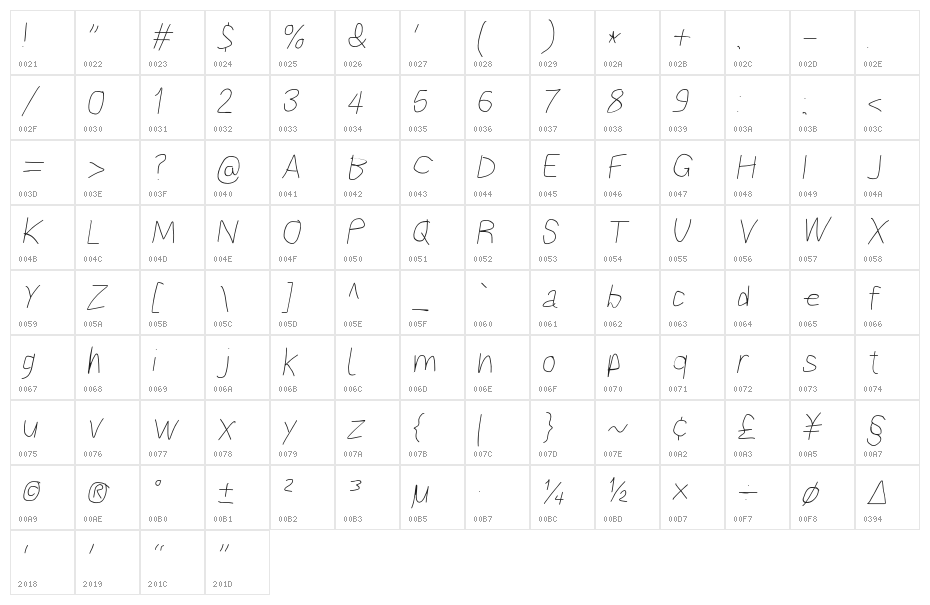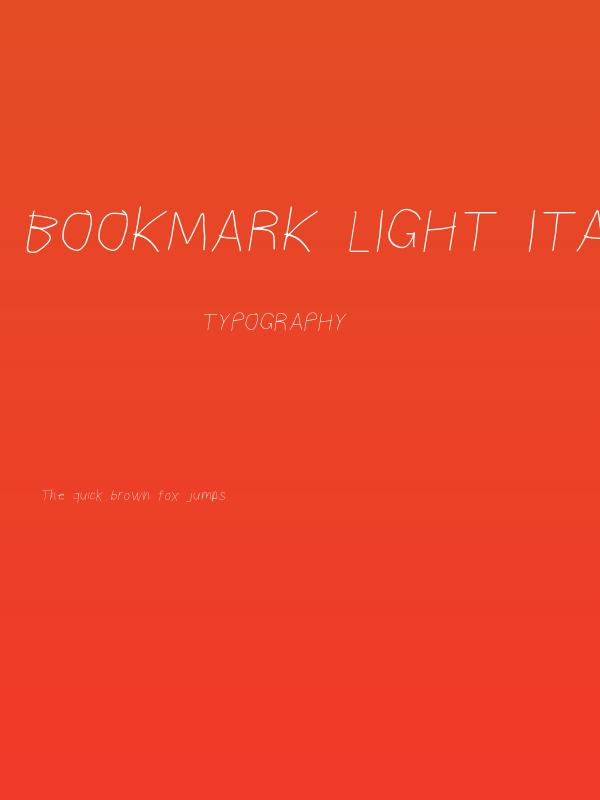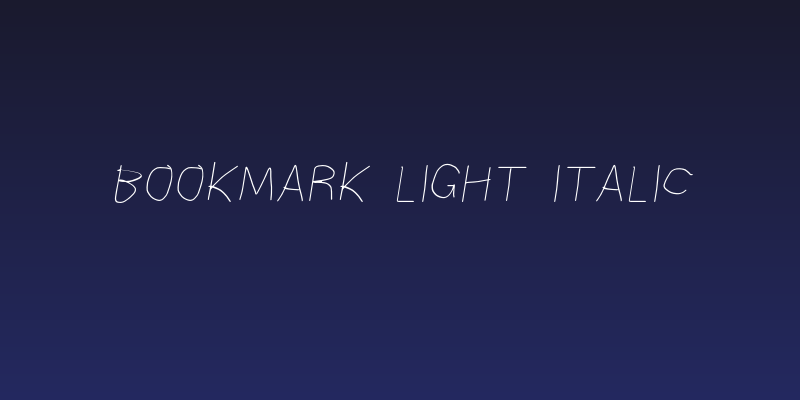
Bookmark Light Italic Font
Bookmark Light Italic Description
This font features a light and airy style with a handwritten aesthetic, characterized by its italicized form. The letters are slightly slanted, giving a casual and informal feel. The strokes are thin and consistent, providing a delicate appearance. The characters have a playful yet elegant quality, making them suitable for creative and artistic projects. The spacing between characters is normal, ensuring readability while maintaining a flowing script-like appearance. The font's overall style is modern with a touch of whimsy, ideal for projects that require a personal touch.
| Proposed Projects | Ideal for greeting cards, invitations, personal branding, and artistic projects. |